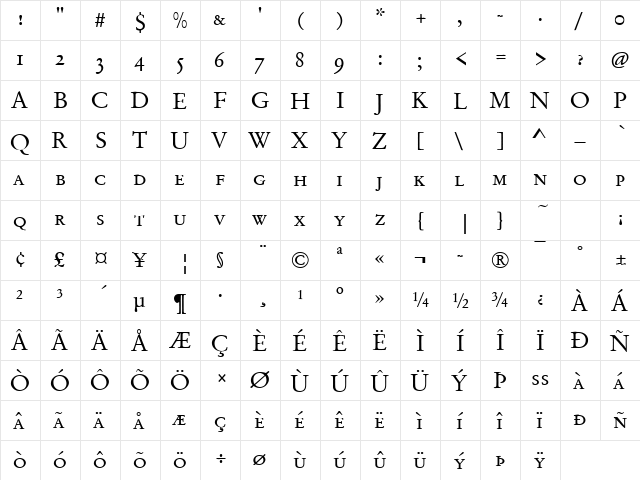
Garamond Becker No2 Caps Regular
Design Context for Garamond Becker No2 Caps Typeface
Garamond Becker No2 Caps is a composed and adaptable typeface that performs quietly and consistently across a wide range of design contexts.